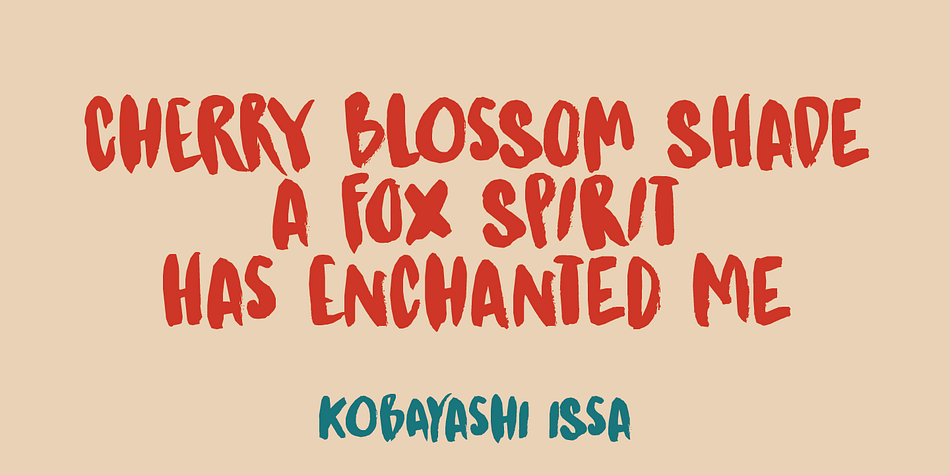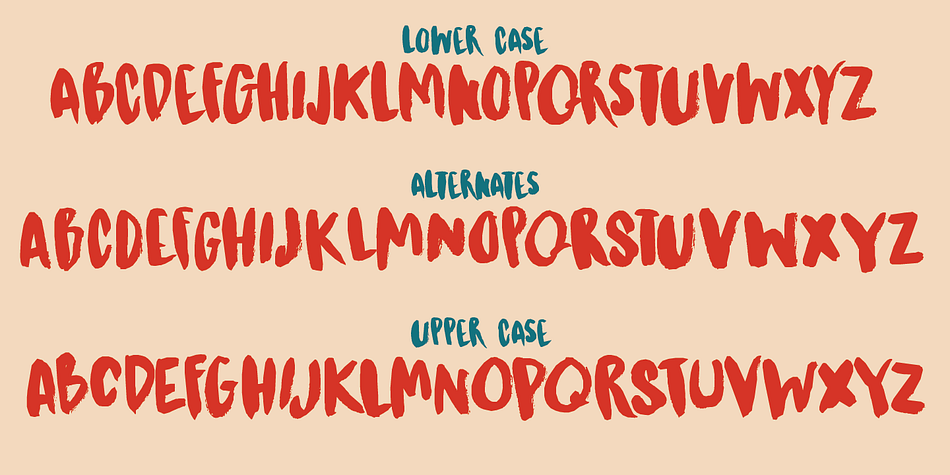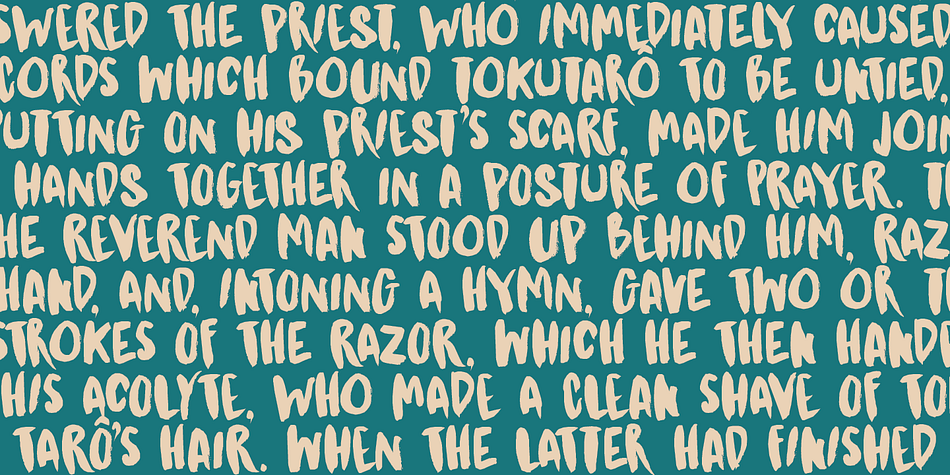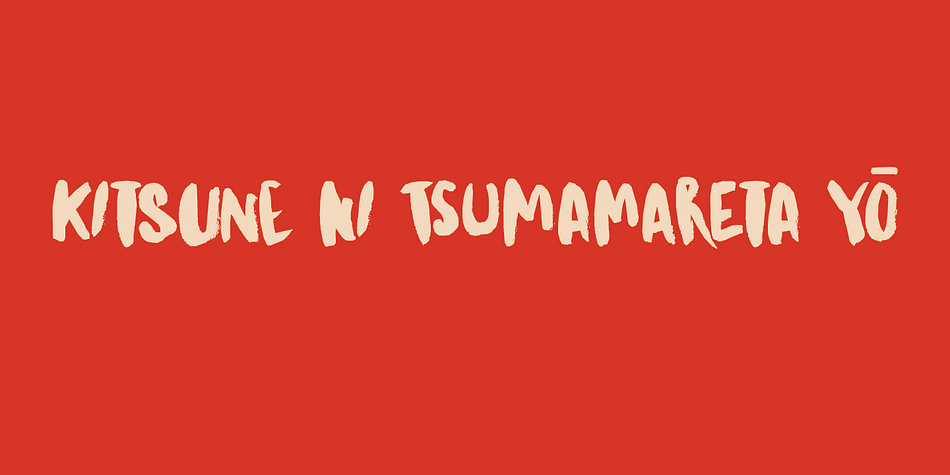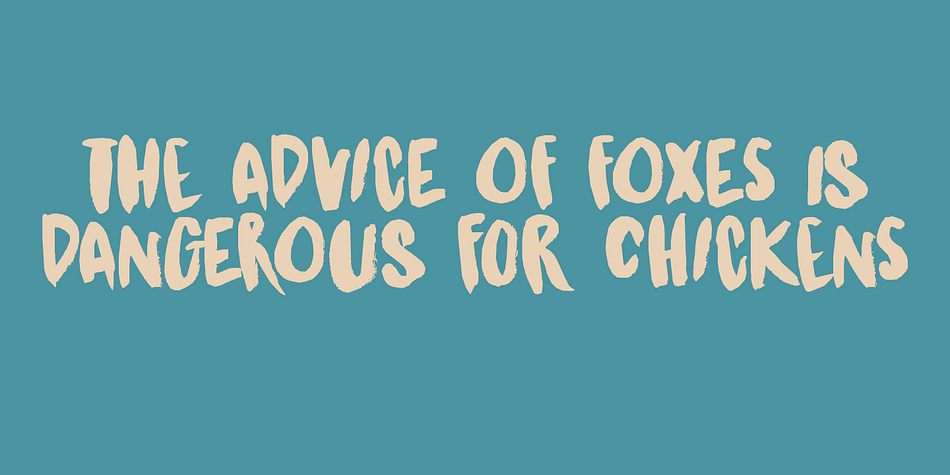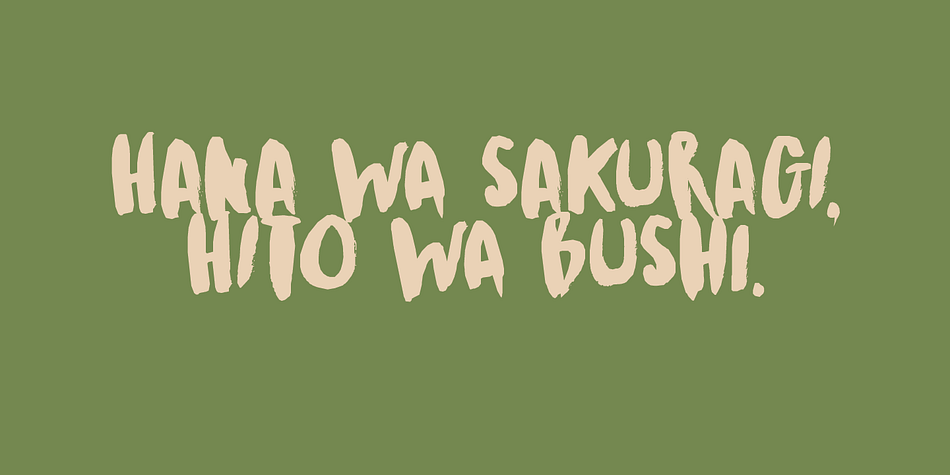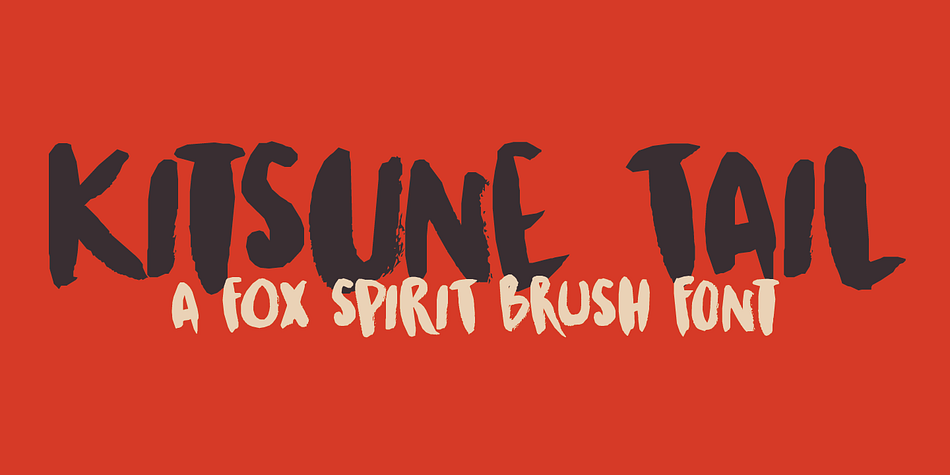
Designed by David Kerkhoff, Kitsune Tail is a brush display font published by Hanoded.
Kitsune means ‘Fox’ in Japanese. It really has nothing to do with Japanese foxes, but I am going to Japan in a few weeks, so I figured a Japan-inspired name would be perfect.
Kitsune Tail is a messy brush font with no real baseline. It is an all-caps font, but upper and lower case differ and can be mixed. It comes with a full set of alternates for the lower case glyphs and a really impressive language support!
I hope this foxy font will bewitch you. Enjoy!